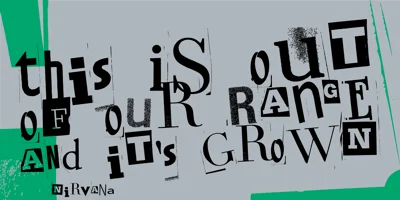
Drunken Hour Font
Drunken Hour Font is an exceptional choice for projects that demand a whimsical, wobbly, and distinctly informal aesthetic, often evoking a sense of carefree fun or slight disorientation. It's perfectly suited for quirky event invitations, playful branding for bars or casual eateries, novelty designs, humorous greeting cards, and any application where you want to inject a feeling of lightheartedness, spontaneity, and a touch of delightful irregularity. Imagine it gracing a flyer for a quirky pub crawl, adding a unique and friendly touch to a craft beer label, or giving a distinctive, handcrafted personality to a casual game's interface. Its uneven baselines and charmingly inconsistent forms ensure your message is conveyed with both personality and an undeniable sense of good cheer.
What makes Drunken Hour Font so exciting is its ability to immediately infuse a design with a sense of playful disorder and an endearing, hand-drawn charm. It offers a visual statement that feels both unique and universally amusing, making it perfect for designs that aim to feel approachable, spirited, and genuinely memorable. This font isn't just about conveying text; it’s about creating an atmosphere of relaxed fun, bringing a sense of spontaneous creativity and genuine character to your visuals. It's the ideal tool for designers who want their work to feel friendly, inviting, and truly stand out with a touch of charming eccentricity.
The Drunken Hour Font family typically focuses on delivering its signature playful and irregular style with precision. You might find a standard Regular weight that embodies its core whimsical design, along with potential variations that enhance its handcrafted appearance, such as slight stylistic alterations or perhaps a bolder version for emphasis. These nuances ensure that Drunken Hour Font can be the cornerstone of a truly unique and powerfully thematic visual identity, helping your designs stand out with an undeniable sense of character and lighthearted authenticity.